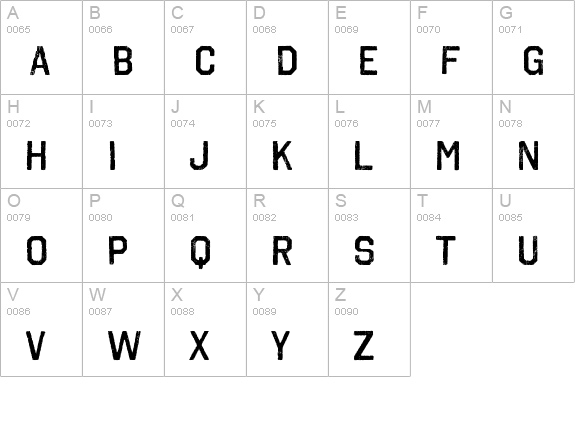
Octin Vintage A Rg Bold Font Details
Octin Vintage A Rg Bold is a strong, high-contrast variant in the Octin typeface family \xE2\x80\x94 well suited to headlines, attention-grabbing titles, and strong calls-to-action.
Octin Vintage A Rg Bold is a striking and versatile font that exudes a sense of nostalgia and timeless elegance. With its bold and rugged appearance, this font is perfect for adding a vintage touch to your designs. The strong and distinctive letterforms make a bold statement, while still maintaining a sense of sophistication. What sets Octin Vintage A Rg Bold apart is not only its unique design, but also the fact that it is completely free to download. You can easily access this font at FontsMarket.com, where you can unleash your creativity and bring your projects to life with this stunning typeface. Whether you're working on branding, packaging, posters, or any other design project, Octin Vintage A Rg Bold is sure to make a lasting impression. Elevate your designs with this free font and stand out from the crowd.